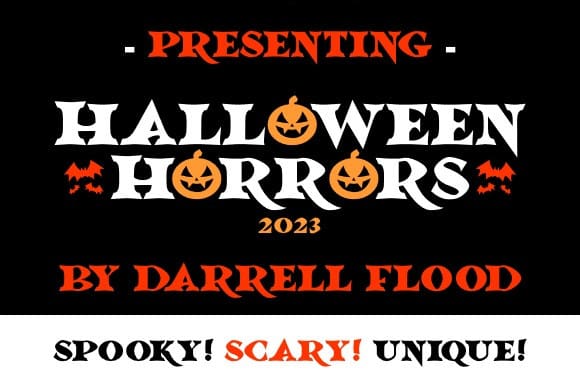
Halloween Horrors 2023 Font
Halloween Horrors 2023Font is a high impact horror font in a slick, ancient evil style! Perfect for Halloween themes, horror events and general fantasy use!